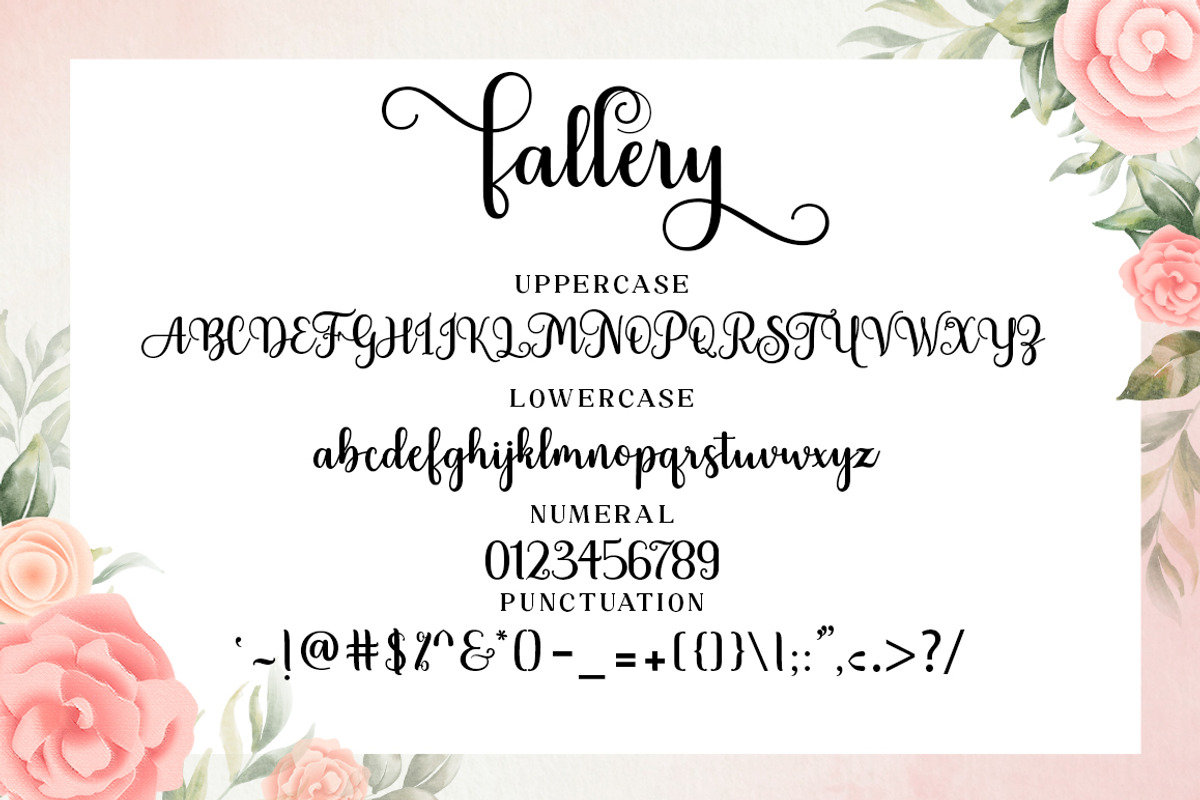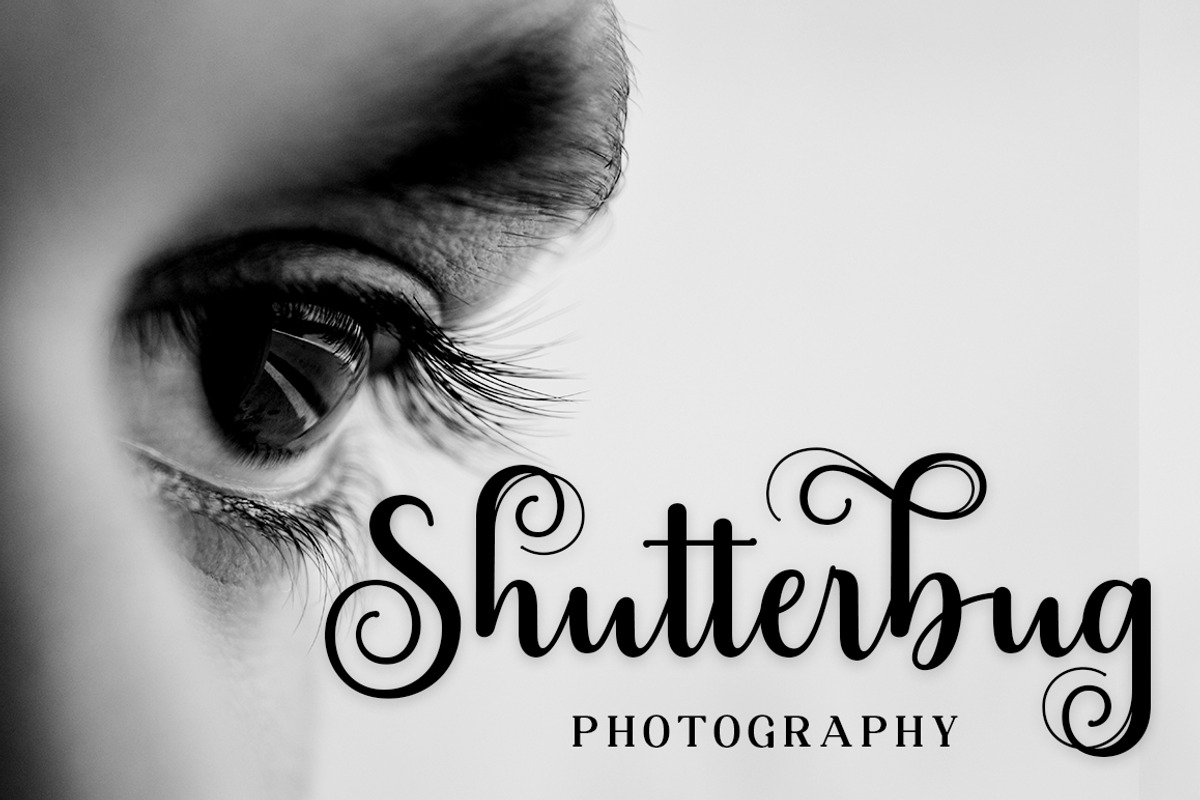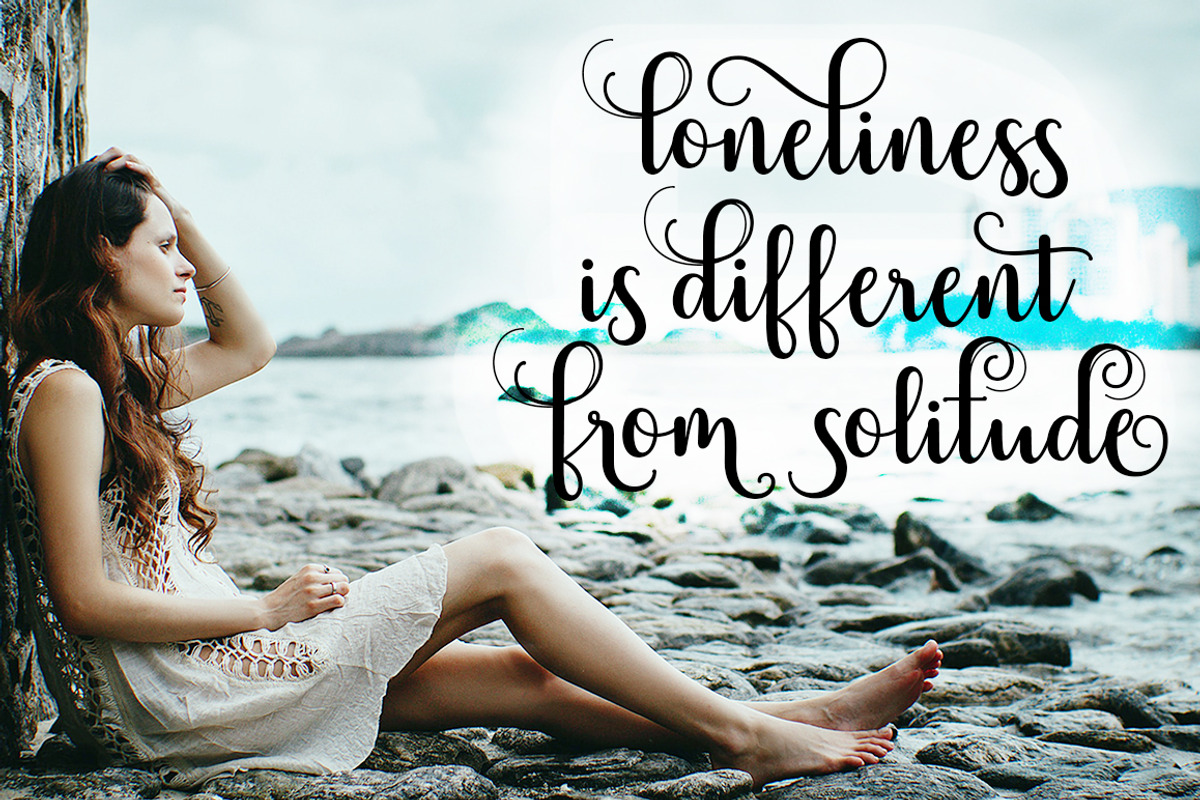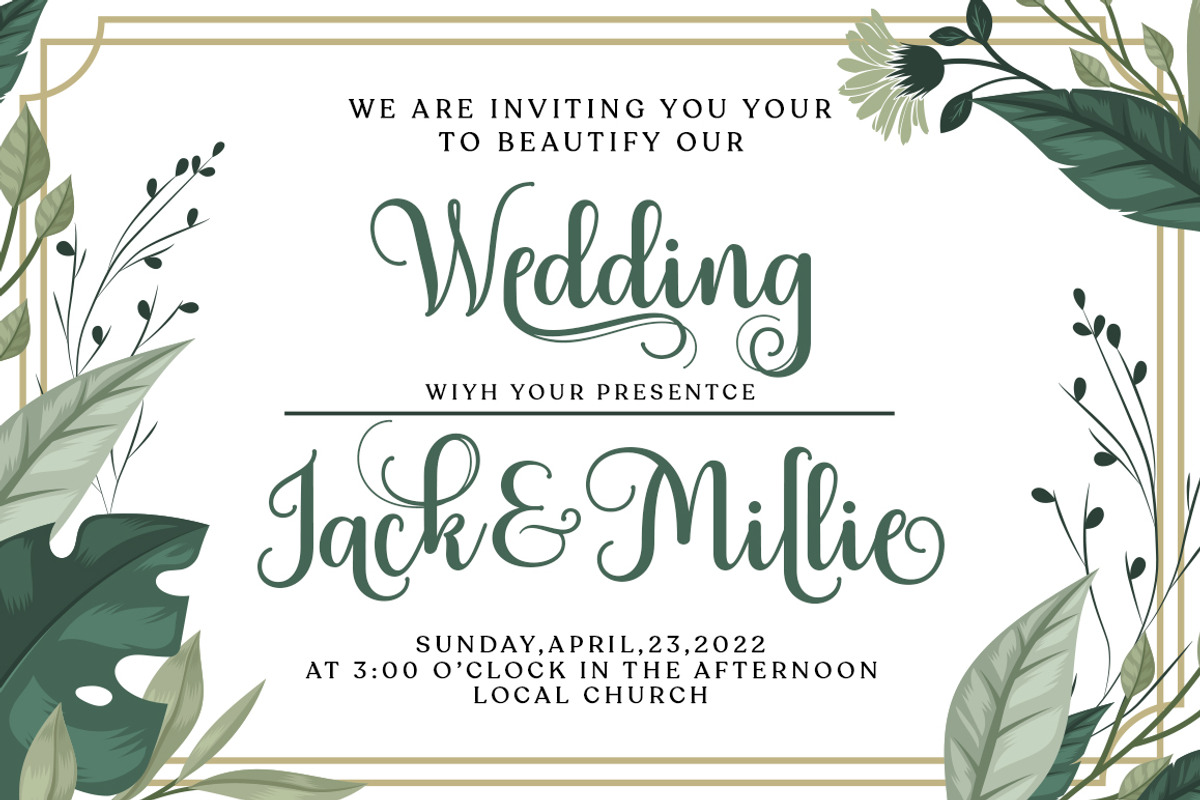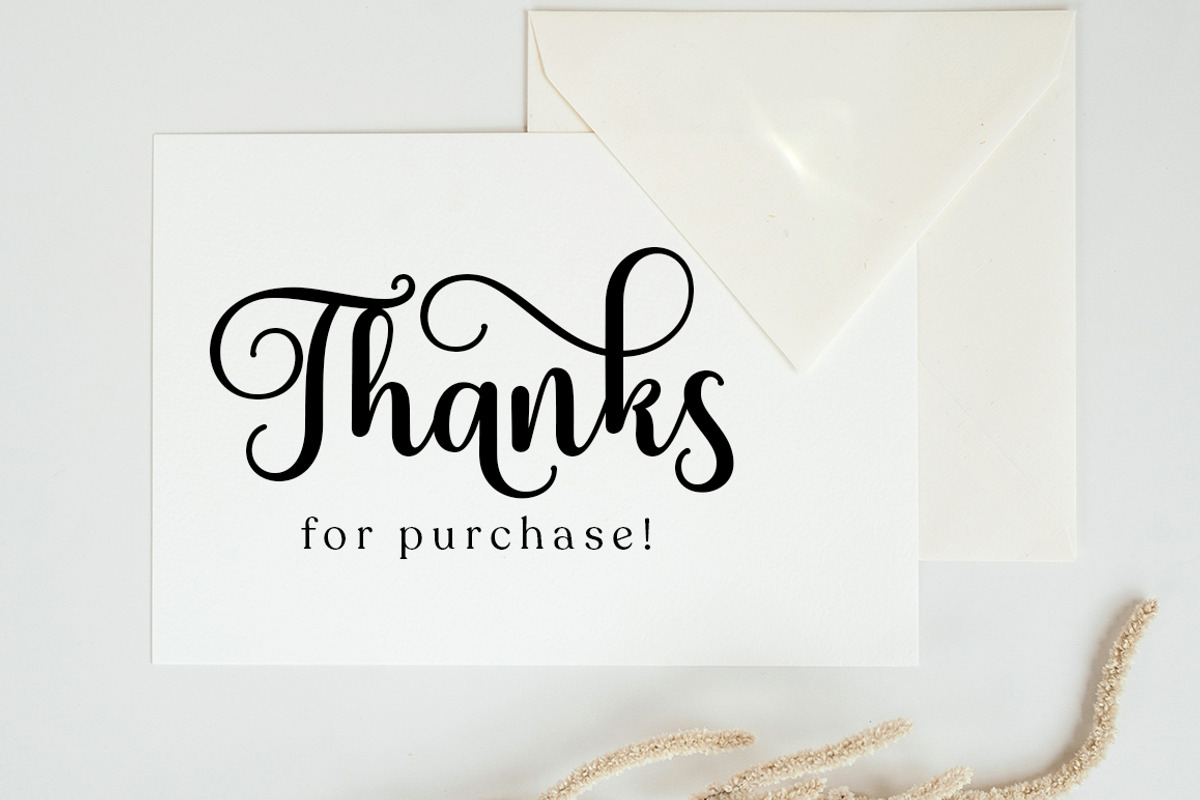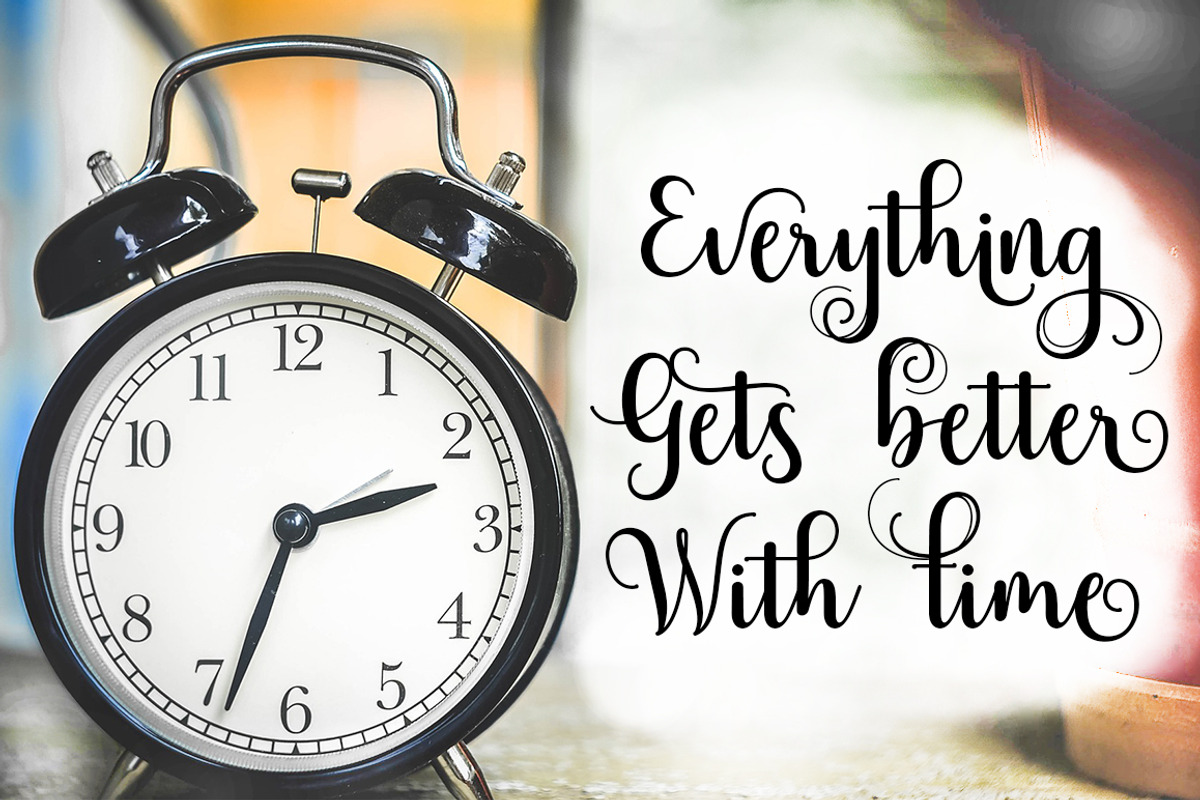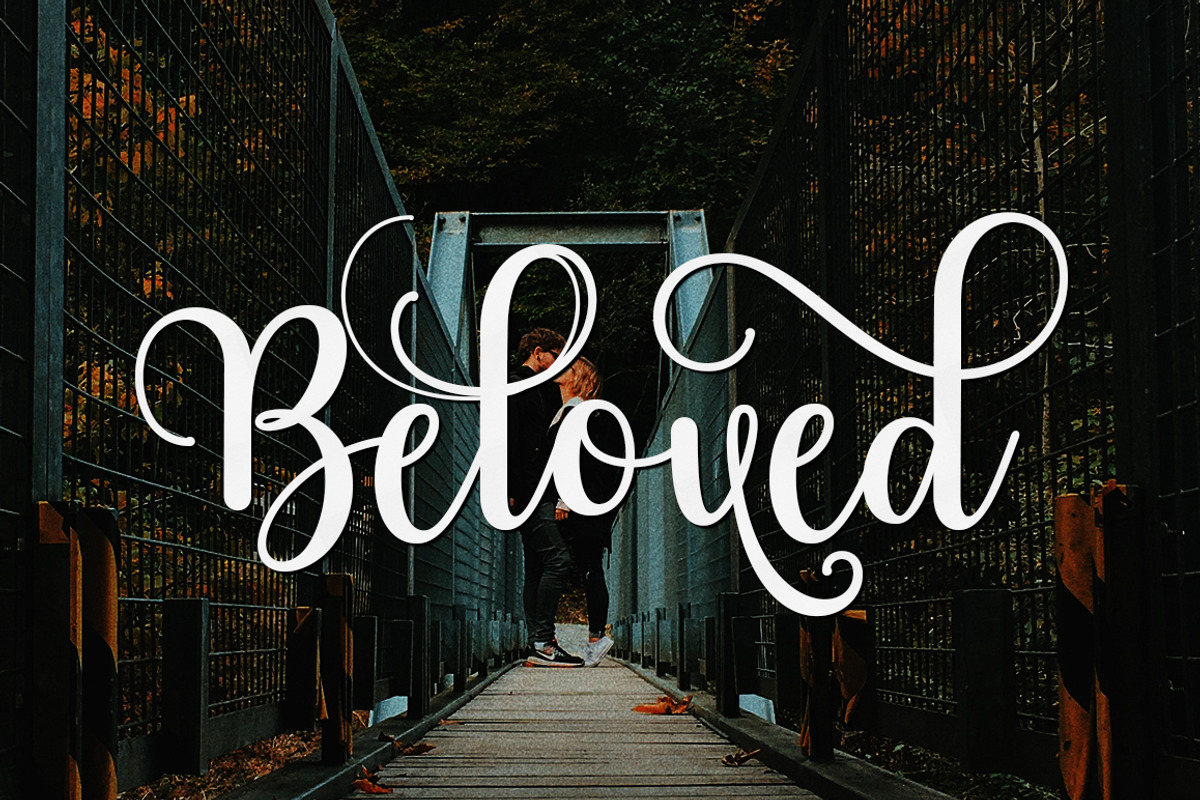
Fallery Script
Fallery Script is a calligraphy script font that comes with exquisite character changes, a kind of classic decorative copper script with a modern twist, designed with high detail for an elegant style.
Fallery Script is interesting because it is smooth, clean, feminine, sensual, glamorous, simple and very easy to read, because of its many fancy letter relationships. I also offer a decent number of stylistic alternatives for some of the letters. Classic style is very suitable to be applied in various formal forms such as invitations, labels, restaurant menus, logos, fashion, make up, stationery, novels, magazines, books, greeting/wedding cards, packaging, labels or all kinds of advertising purposes.
Fallery Script has alternative Glyph characters, including multiple language support. With OpenType features with alternate styles and elegant binding. The OpenType features work automatically, but you can access them manually and for best results your creativity will be required in combining variations of these Glyphs.